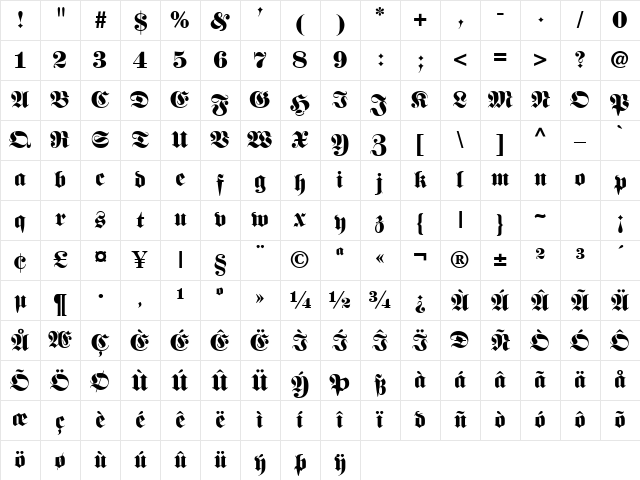
Frankenstein Regular
Frankenstein Family
Frankenstein Regular
Design Context for Frankenstein
Frankenstein is a composed and adaptable typeface that performs quietly and consistently across a wide range of design contexts.